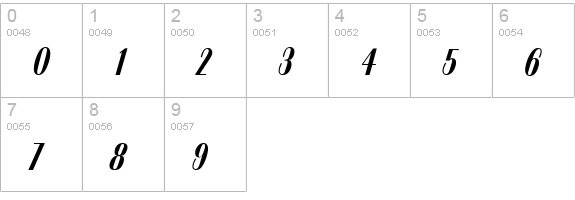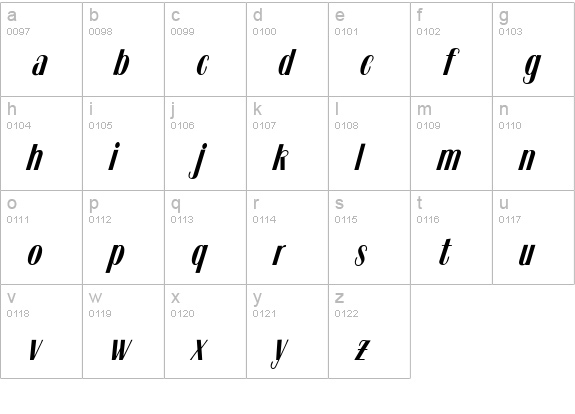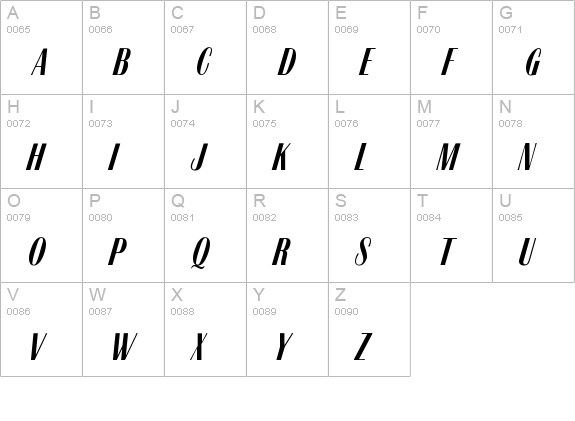
Tzigane MN Font Details
Tzigane MN font is a stunning and versatile typeface that exudes elegance and sophistication. With its graceful curves and unique design, this font is perfect for adding a touch of class to any project. Whether you are working on a branding project, a wedding invitation, or a beautiful poster, Tzigane MN font will elevate your design to new heights. The best part? Tzigane MN font is completely free to download at FontsMarket.com! You can easily access this exquisite font and use it in your personal and commercial projects without any cost. Don't miss out on the opportunity to enhance your designs with the beauty and charm of Tzigane MN font. Download it today and let your creativity shine!